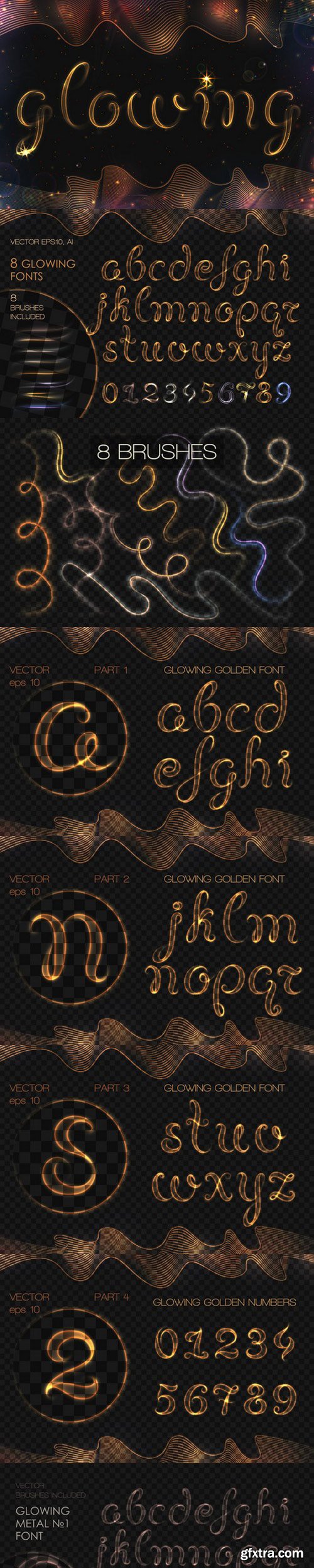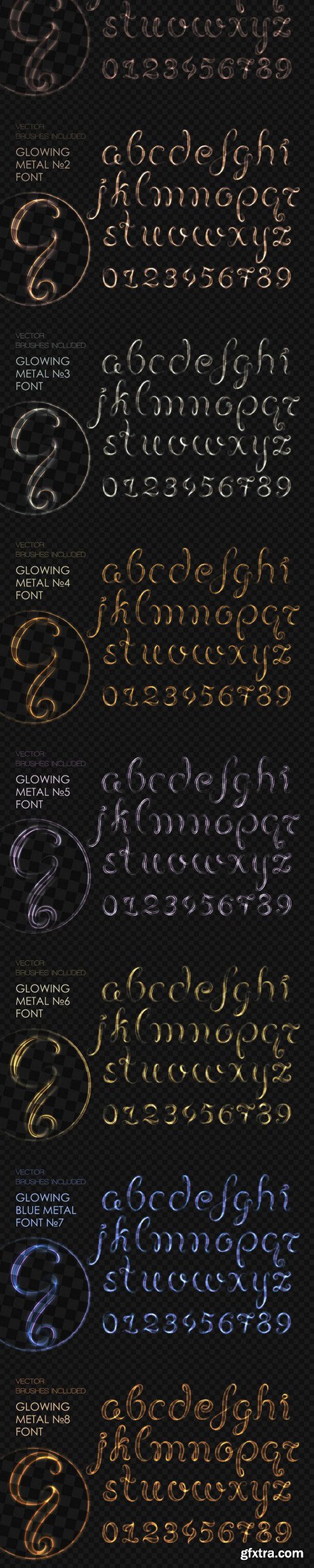
8 GLOWING METAL FONTS / 8 BRUSHES
- Realistic Vector neon metal brushes in main file Ai file
- You can change and edit all lines of each word in Ai file
- High quality of illustrations, each line were drawn carefuly with love =)
- Garmony and balance in each metal color